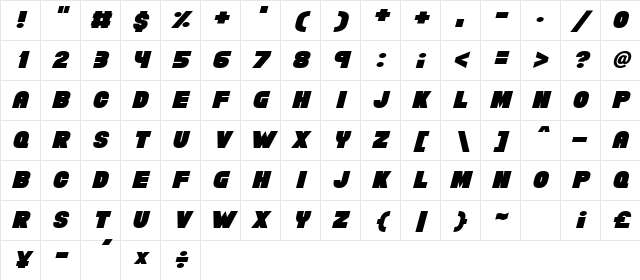
Complete Chunky Funks Italic glyph index. Displaying only characters natively supported by Chunky Funks Italic font.
Chunky Funks has an approachable, lighthearted character - its loose, expressive forms are well-suited to children's content, casual branding, and fun-first design. The slanted form adds forward momentum and visual energy.
Font Pairing: Pairs well with a rounded or humanist sans for body copy, maintaining the friendly tone without relying on Chunky Funks to carry extended reading.
Pro Tip: Use Chunky Funks at larger display sizes where its expressive character can land. Pair with a clean, simple sans for body copy to maintain readability.